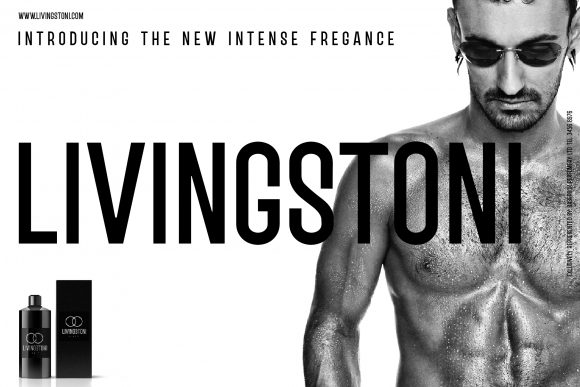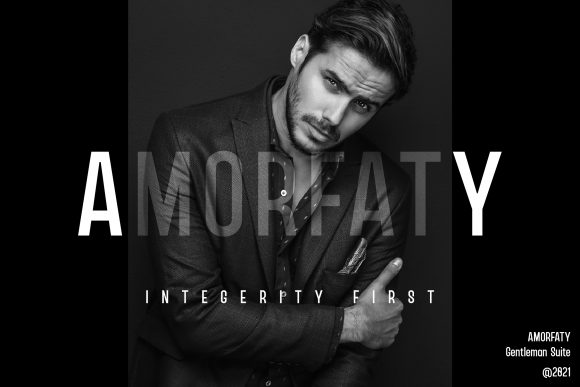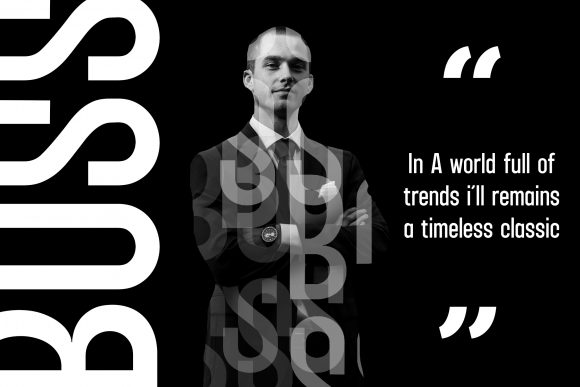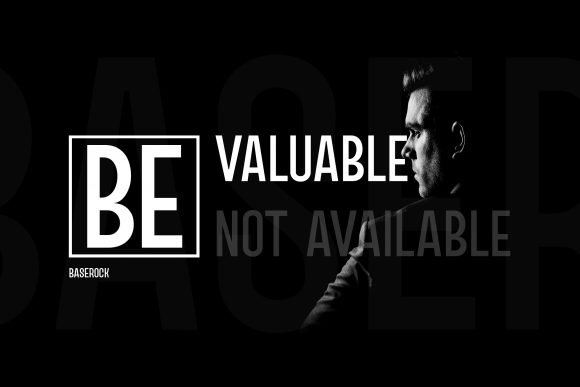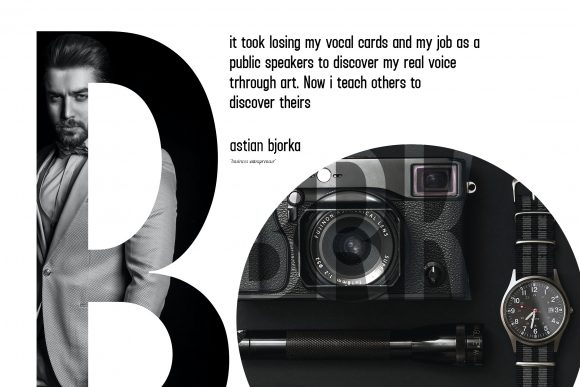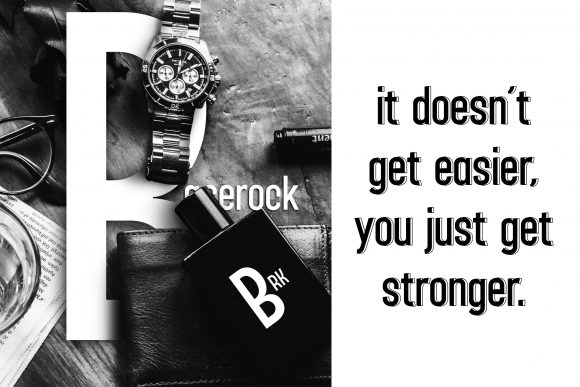
Baserock Font: Elevate Your Designs with a Clean, Simple, and Sharp Display Font
As a designer or crafter, you’re constantly on the lookout for the perfect font to elevate your work and make it stand out. Look no further than Baserock Font, a clean, simple, and sharp looking display font that’s sure to inspire your creations. In this article, we’ll dive into the world of Baserock Font, exploring its features, benefits, and endless possibilities for your designs.
What is Baserock Font?
Baserock Font is a modern display font that’s designed to make a statement. Its clean and simple design makes it perfect for a wide range of applications, from branding and advertising to packaging and digital media. The font’s sharp lines and precise curves give it a sleek, contemporary look that’s sure to grab attention.
Key Features of Baserock Font
- Clean and Simple Design: Baserock Font boasts a clean and simple design that’s easy to read and understand. This makes it perfect for use in a variety of contexts, from headings and titles to body text and more.
- Sharp and Precise Lines: The font’s sharp lines and precise curves give it a sleek, modern look that’s sure to elevate your designs.
- Highly Versatile: Baserock Font is highly versatile, making it suitable for use in a wide range of applications, from print and digital media to branding and advertising.
- Easily Customizable: The font is easily customizable, allowing you to adjust the size, color, and style to suit your needs.
Benefits of Using Baserock Font
So why choose Baserock Font for your designs? Here are just a few benefits of using this amazing display font:
- Instant Impact: Baserock Font’s clean and simple design makes it easy to read and understand, while its sharp lines and precise curves give it a modern, attention-grabbing look.
- Endless Possibilities: The font’s versatility means you can use it in a wide range of applications, from print and digital media to branding and advertising.
- Easy to Pair with Other Fonts: Baserock Font pairs easily with other fonts, making it simple to create a cohesive look that reflects your brand’s personality.
- Professional Look and Feel: The font’s sleek, modern design gives your work a professional look and feel that’s sure to impress.
Exploring the Endless Possibilities of Baserock Font
So what can you do with Baserock Font? The possibilities are endless! Here are a few ideas to get you started:
- Branding and Advertising: Use Baserock Font to create eye-catching logos, ads, and marketing materials that grab attention and communicate your message.
- Digital Media: The font is perfect for use in digital media, including social media graphics, website headers, and more.
- Packaging Design: Baserock Font is a great choice for packaging design, adding a modern, sleek look to your products.
- Print Media: The font is also suitable for use in print media, including brochures, flyers, and more.